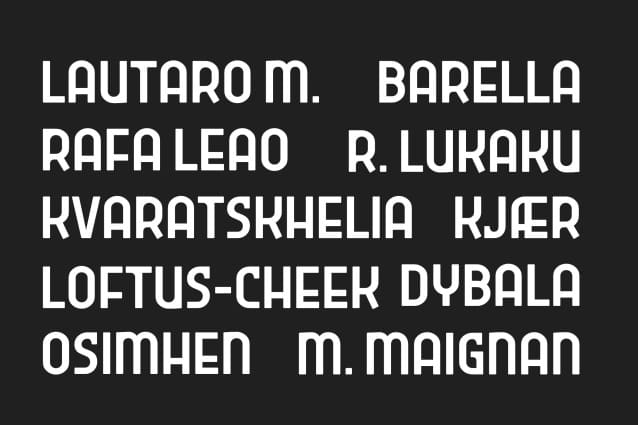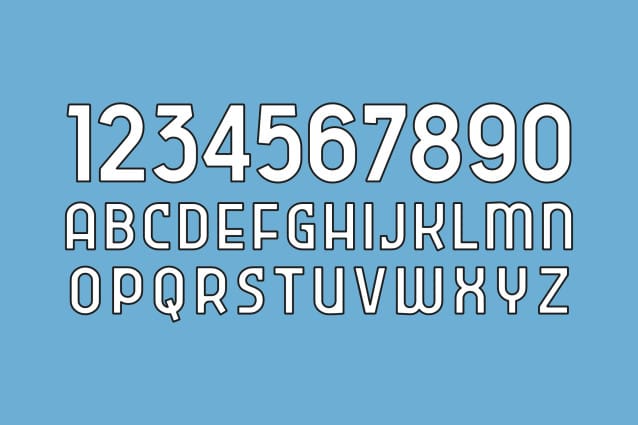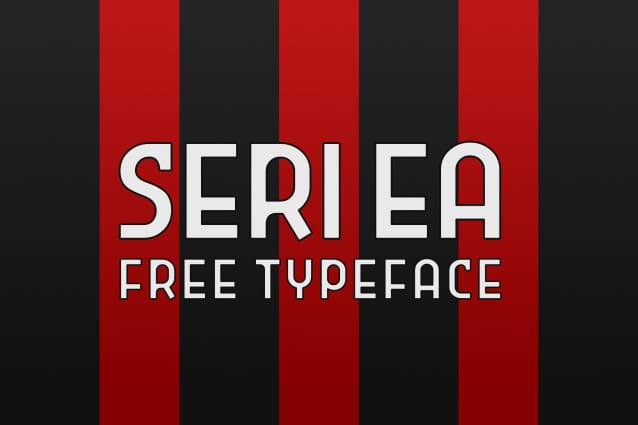
Seri Ea Font
Seri Ea Font, is a typeface that inspired by Serie A jersey name and number font. It is looks like the original one but still different.